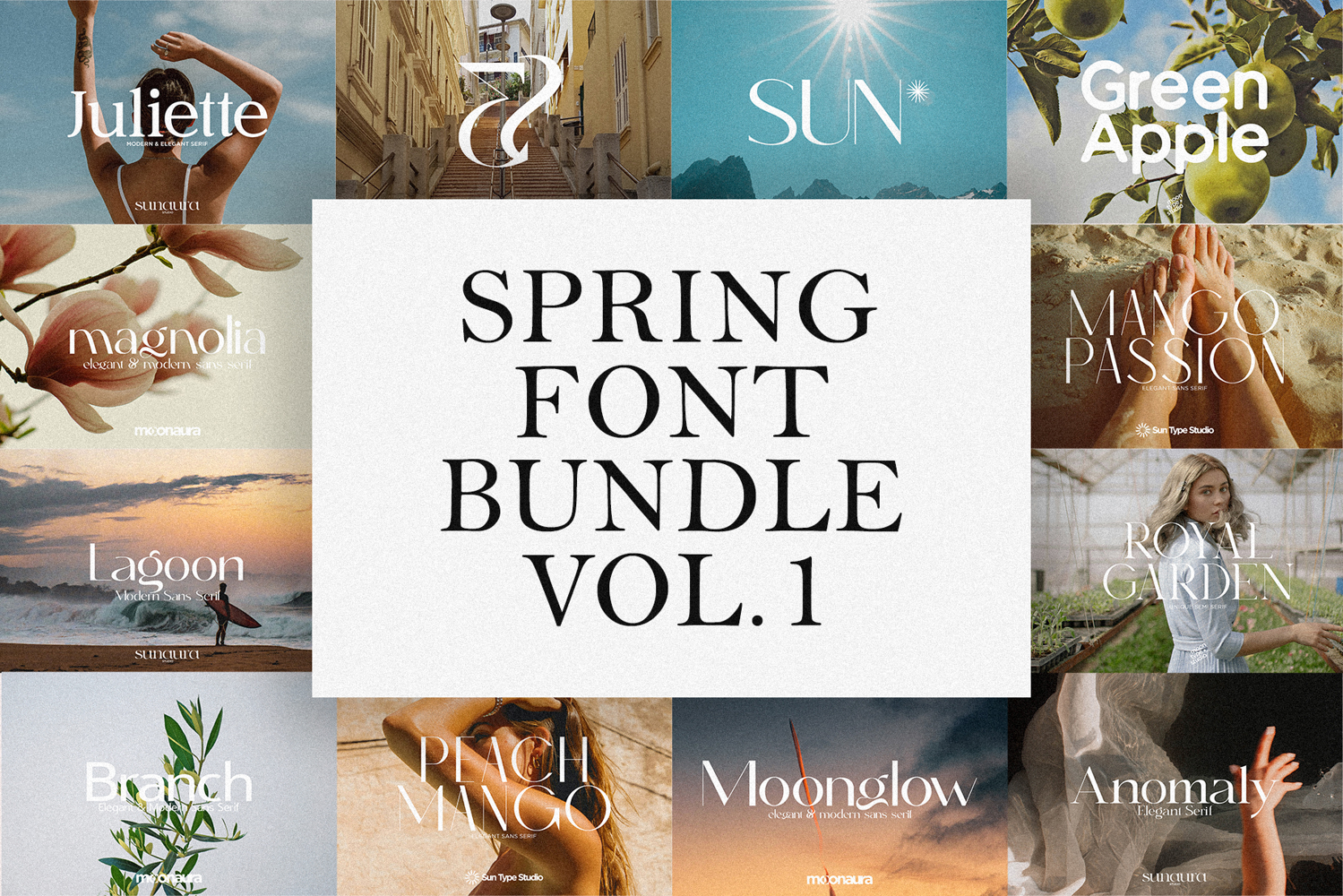
Spring Font Bundle Vol.1
Refresh your creative projects with Spring Font Bundle Vol. 1 – a beautiful collection of hand-picked fonts designed to bring a fresh, vibrant, and elegant touch to your work. Inspired by the light, warmth, and blooming beauty of spring, this bundle combines stylish scripts, modern display fonts, and versatile typefaces perfect for a wide range of designs. Whether you're creating branding, logos, invitations, social media graphics, packaging, posters, or digital products, these fonts will help your designs stand out with charm and personality. Bring the feeling of fresh blossoms, sunshine, and creativity into your designs with this versatile font bundle. Perfect for designers & creators looking to add a soft, stylish, and seasonal touch to their work.